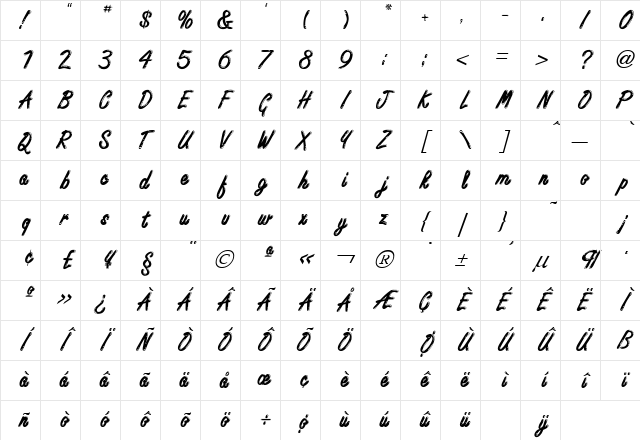
Casino Regular Free Font
Casino Regular
Design Context for Casino
Casino is a composed and adaptable typeface that performs quietly and consistently across a wide range of design contexts.
Pro Tip: Use Casino in both headline and body roles to test its range before committing to a single application.